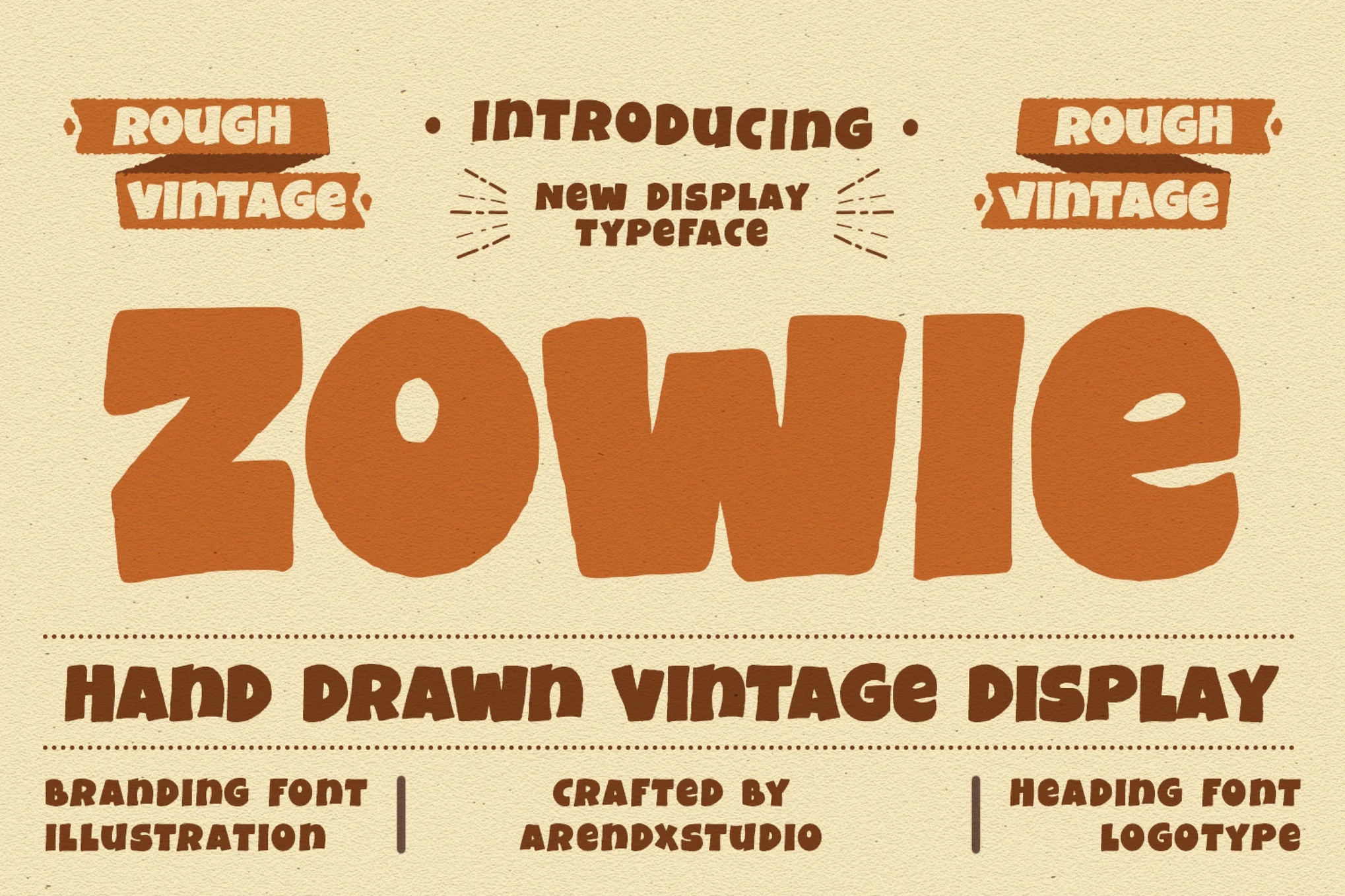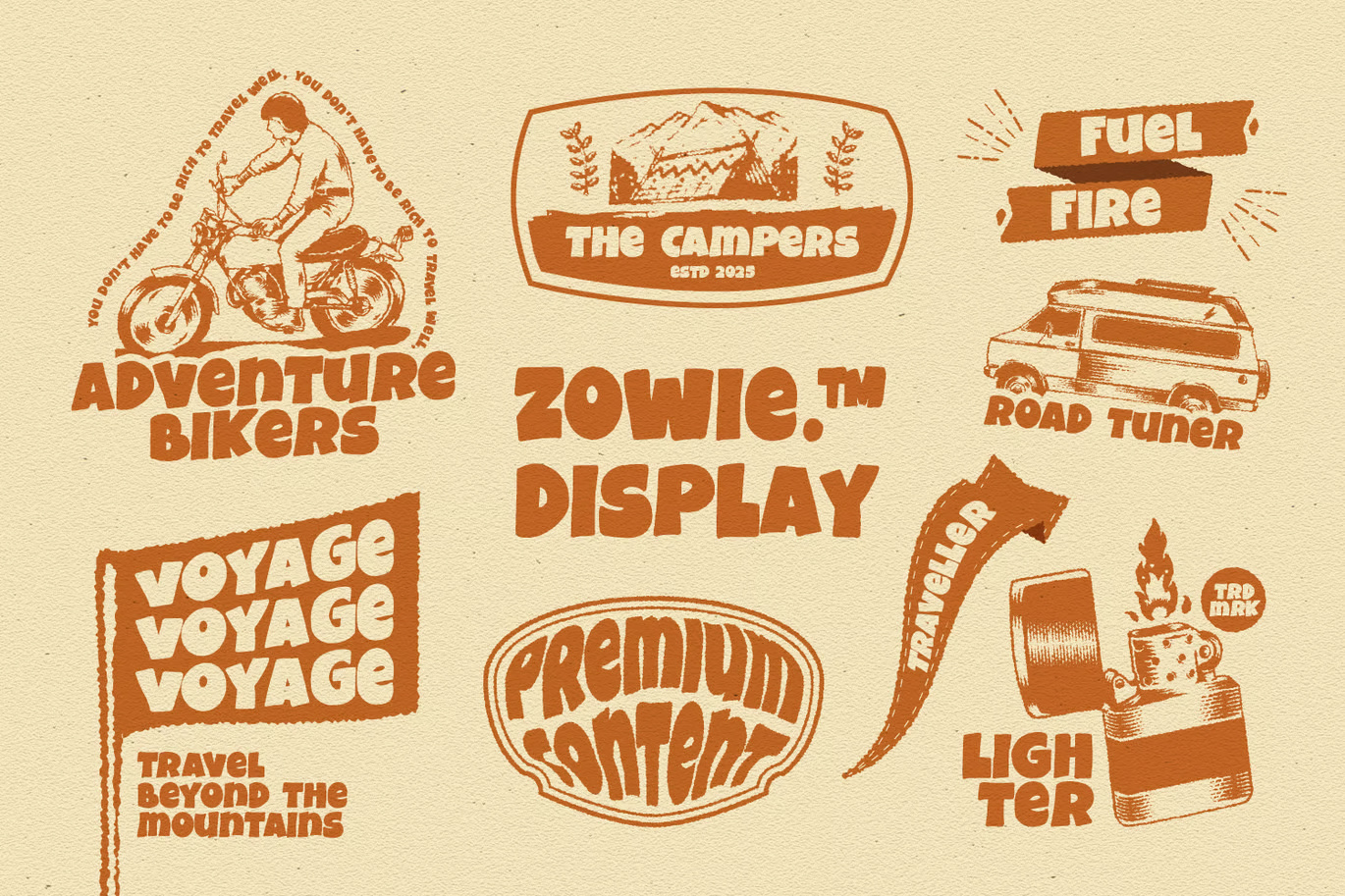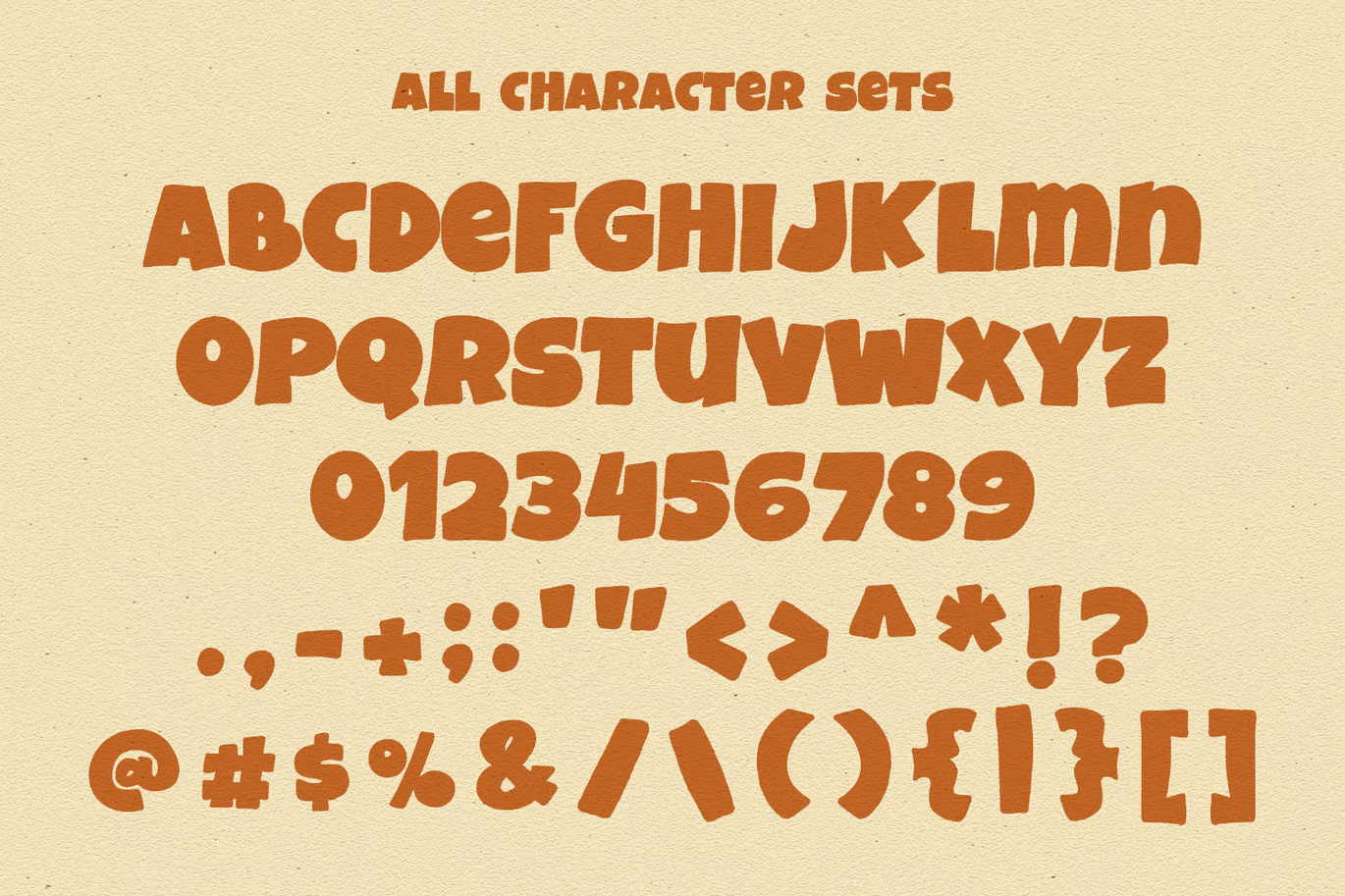
Zowie is chunky, hand-drawn and a little rough at the edges. Arendxstudio gave it uneven, heavy letters with a dry, slightly worn texture, like ink on old paper. The specimen calls it “Rough Vintage”, and that’s an honest summary.
The logo page is where it makes sense: “Adventure Bikers”, “The Campers”, “Fuel Fire” and “Road Tuner” badges, all in one colour. Zowie handles curved and stacked layouts well. The full version includes alternates with ink-splatter and halftone textures. The free download includes TTF and WOFF2.
Best uses for Zowie
- Outdoor and travel badges
- Retro comic and pop-art titles
- Craft beer and coffee labels
- Band merch
- Vintage-style T-shirts
Zowie is heavy and textured, so pair it with clean type. Oswald works for subheads. Roboto Slab gives a sturdy, vintage partner for body copy. For small print, Barlow is a good choice.
Zowie Display Sans-Serif Font